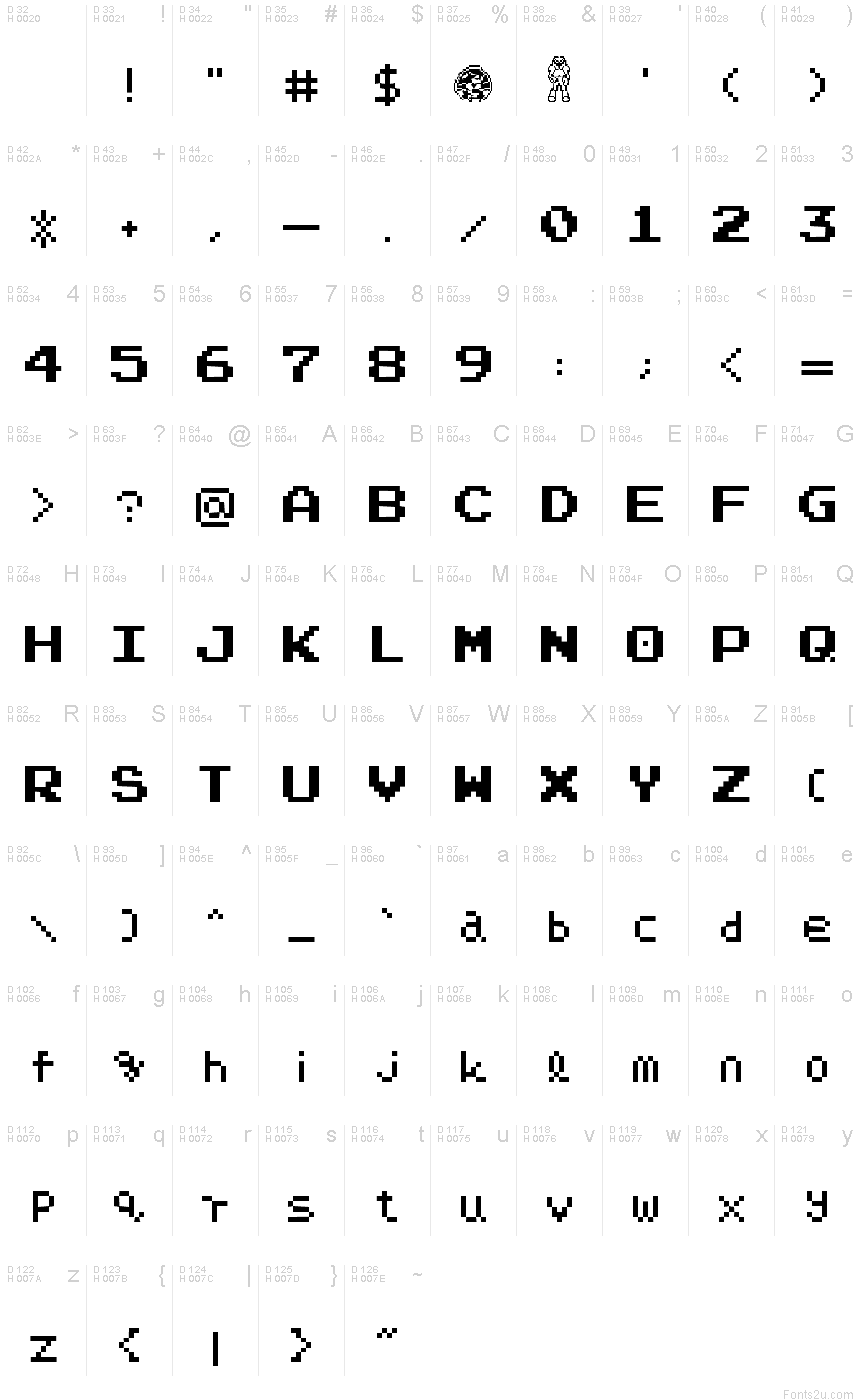
NARPASSWORD00000 fixed.width by Xero Harrison of Fontvir.us is a free pixel font built from stark, square-edged blocks. Its tall caps use rigid right angles and evenly weighted strokes, with narrow breaks cut into several forms. The fixed cell-like proportions give the lettering the look of an early computer display.
Technology and retro gaming are the clearest themes for its compact, mechanical shapes, making it useful for game graphics, event posters, and electronic music artwork. It can also turn interface labels or merchandise lettering into part of a low-resolution computer world.
NARPASSWORD00000 is a pixel font based on the password screen from the original NES game Metroid. It includes uppercase and lowercase letters A–Z, digits, special characters, a full international character set, and some 8-bit dingbats.
NARPASSWORD00000 fixed.width